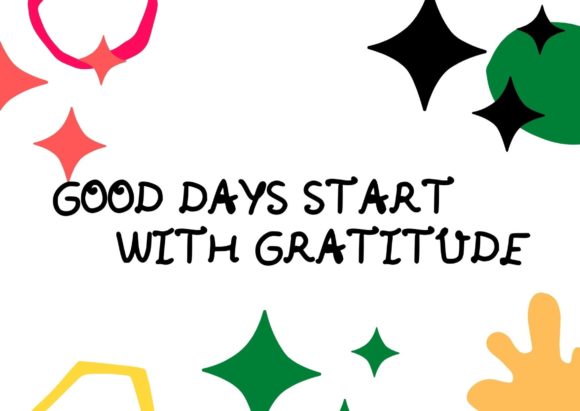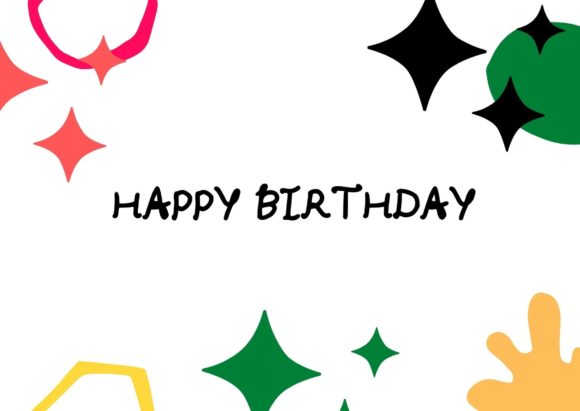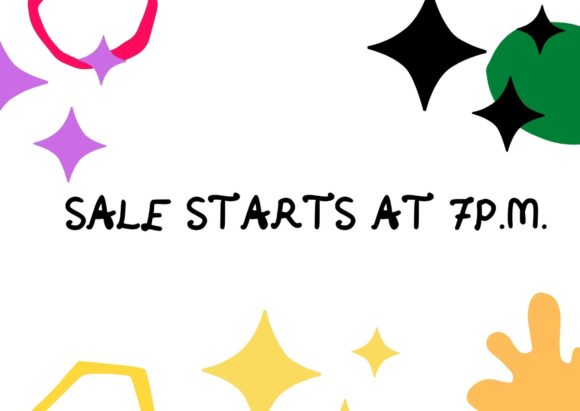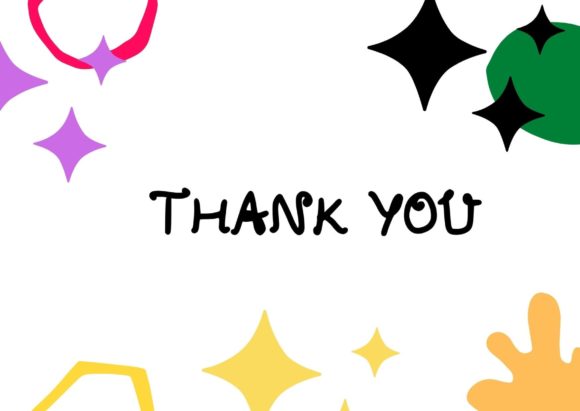
Caps Number Font
About Caps Number Font
Caps NumberĀ is a cute and simple lettered handwritten font that can be used for all chalkboard quotes or teaching material! Its authentic look will add a personal and realistic feel to your designs.